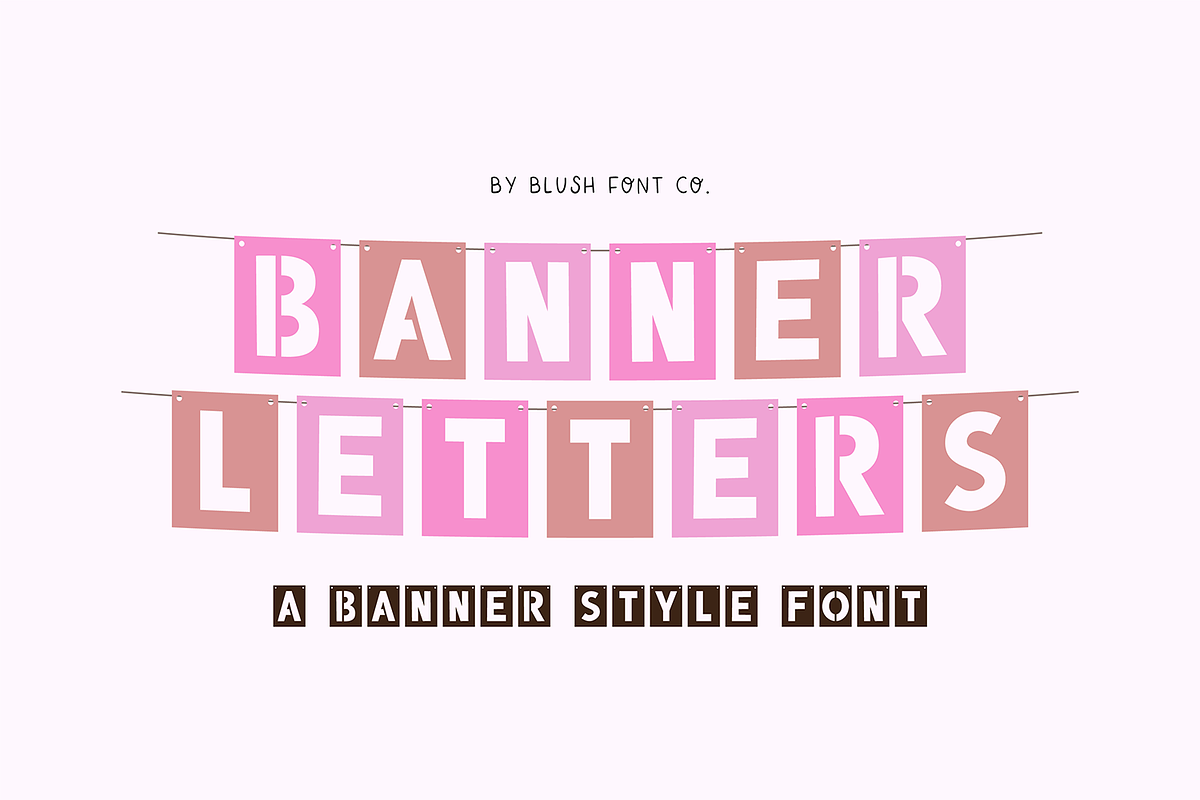
BANNER LETTERS Party Banner Font Free Download is a fun, bold, and festive typeface designed specifically for celebration-themed projects. With its all-caps, cut-out style, this font mimics the look of classic party banners—making it perfect for birthday invites, event signage, DIY decorations, kids’ crafts, and any design that needs a playful punch of personality.
Using the BANNER LETTERS Party Banner Font Free Download gives your projects an instant party vibe. It's super easy to read and visually exciting, making it ideal for headings and centerpieces in both print and digital formats. Whether you're organizing a baby shower or designing a printable party pack, this font adds that extra dose of cheer.